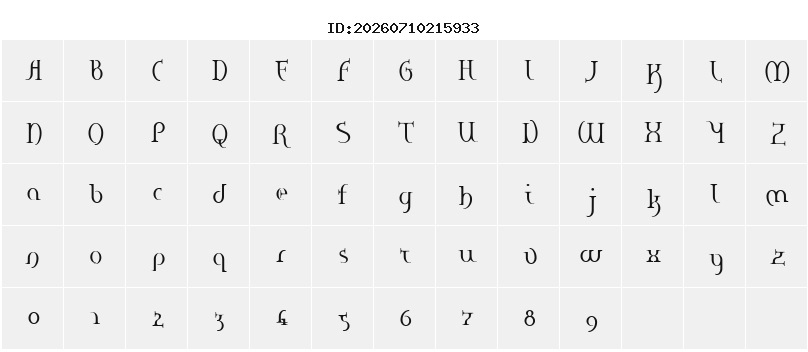
Hane Preview
• Font Name: Hane
• Font Style: RegularE
• Full Font Name: Hane RegularE
About Hane.ttf
Hane.ttf is a modern, elegant sans-serif font designed for ultimate readability and visual harmony. Perfect for branding, headlines, web design, and print materials.